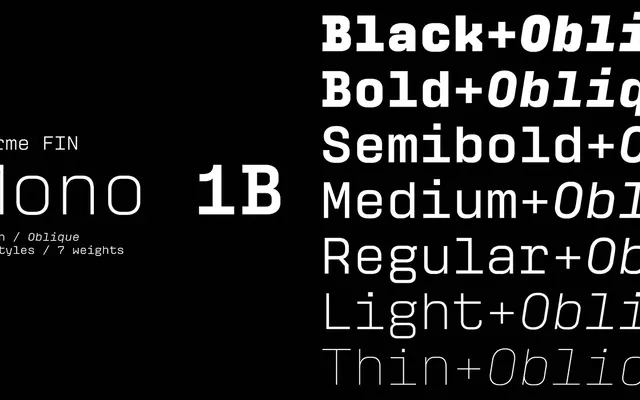
Hurme FIN Mono 1b
A monolinear monospaced sans in seven weights with obliques, offered as an alternate character-set variant to FIN Mono 1a.
Horizontal stroke terminals and shortened ascenders and descenders give this family a tight, technical character suited to interfaces and data-heavy contexts. The 1b designation refers to a different default character set from FIN Mono 1a, with the remaining characters accessible via OpenType stylistic sets; purchasing 1b includes matching weights of 1a at no extra cost. Fourteen styles in total cover Thin through Black with corresponding obliques, and OpenType support extends to fractions, ordinals, discretionary ligatures and a slashed zero.
Explicitly described as monolinear and monospaced, with horizontal stroke terminals and optically adjusted obliques rather than true italics, placing it firmly in the monospaced sans-serif category.